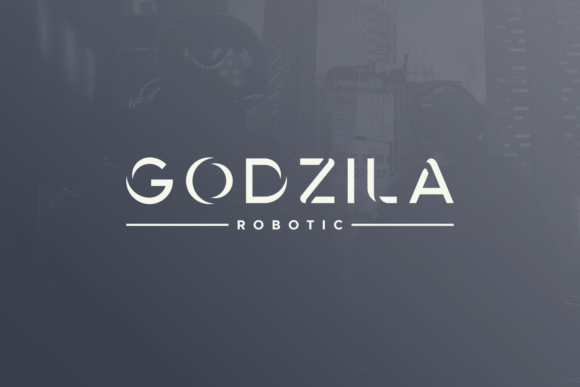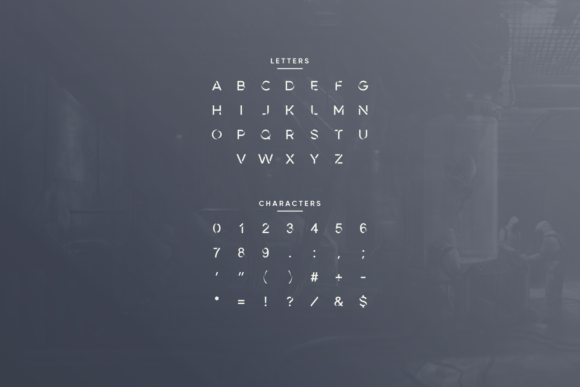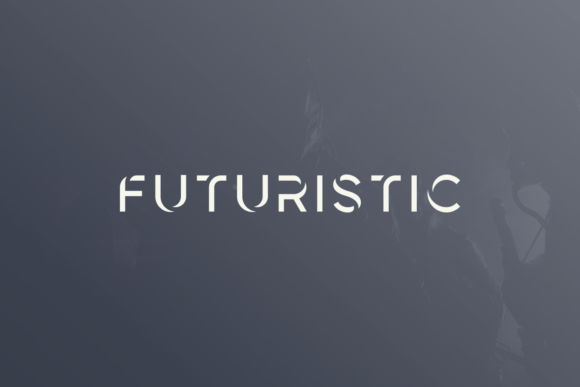
It was love at first sight! The sleek lines, the futuristic vibe, and the luxurious feel – it was exactly what I needed. I knew right then and there that Clourso Font was going to be my go-to for all my future projects that required a modern and sophisticated touch.
Clourso Font: The Ultimate Review
- ✨ Luxurious and Futuristic: Clourso Font exudes a sense of high-end quality and futurism, making it perfect for designs that require a modern edge.
- ✅ All Caps: The font comes in all caps, which adds to its luxurious and bold feel.
- 💡 Versatile: Whether it’s for logo designs, posters, magazines, or headlines, Clourso Font fits right in.
- 🤔 Limited Lowercase: Since it’s an all-caps font, you won’t have lowercase letters at your disposal. This might be a limitation for certain projects.
- ⚠️ Requires Attention: The font’s bold nature means it can be overwhelming if not used thoughtfully. Make sure to balance it with other design elements.
One of the exciting aspects of Clourso Font is its support for OpenType features. These features allow you to access additional glyphs, stylistic alternates, and even ligatures, which can add a unique touch to your designs.
The Designer Behind Clourso Font
Clourso Font was crafted with passion and dedication by a talented designer who sought to create a typeface that embodies both luxury and futurism. The designer’s inspiration came from sci-fi movies, sleek architecture, and modern technology. The goal was to create a font that not only looks futuristic but also feels luxurious and high-end.
| Font Name | Clourso Font |
| Author | Letterna |
A: Clourso Font is ideal for projects that require a modern, luxurious, and futuristic feel. This includes logo designs, posters, magazines, and headlines.
A: Currently, Clourso Font comes in an all-caps format. There might be variations or additional weights available, but the primary style is bold and luxurious.